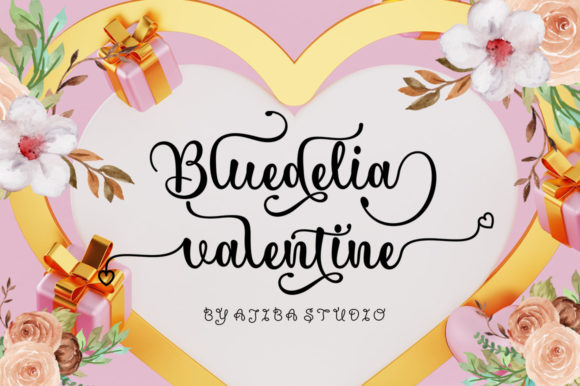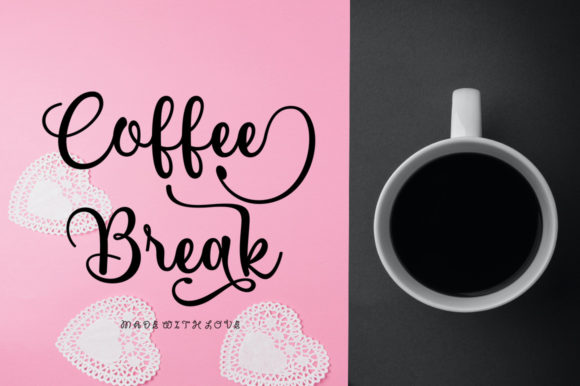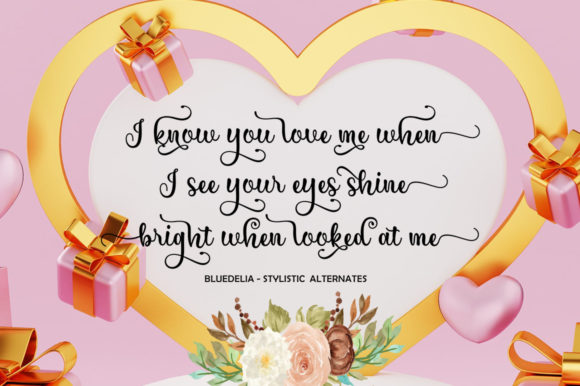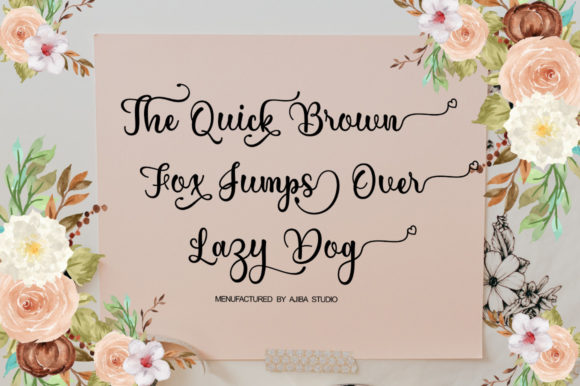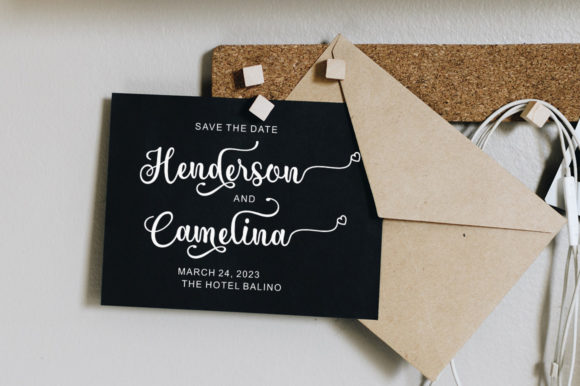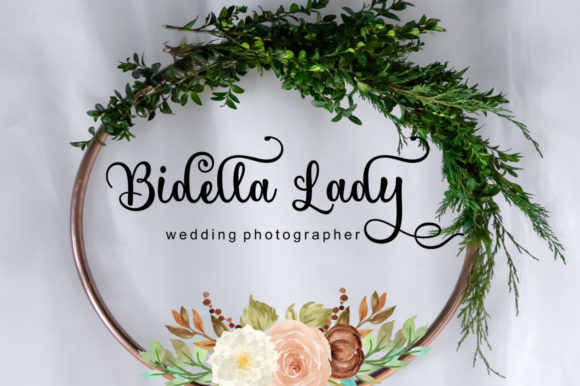
The Perfect Font for Your Love Story: Bluedelia Sript Font
Have you ever been stuck in front of your computer, staring at a blank page, desperately searching for the right words to express your feelings? You know, that moment when you want to write a love letter to your partner, but the words just won’t come out right? That’s where the Bluedelia Sript Font comes in – a beautiful, romantic, and sweet calligraphy typeface that will make your words dance along the baseline.
This stunning font is designed to add a touch of luxury to any design project, making it perfect for wedding invitations, anniversary cards, or any other romantic gesture. With its PUA encoding, you’ll have access to all the amazing glyphs and ligatures, making it easy to create stunning designs. Whether you’re a seasoned designer or a DIY enthusiast, the Bluedelia Sript Font is sure to bring a touch of elegance to your work.
Bluedelia Script Font Features
- Font Family: Bluedelia Script, a beautiful and elegant script font
- Unique Characteristics: Handwritten, cursive, and elegant script style with a touch of sophistication and romance
Bluedelia Script Font Review
Bluedelia Script Font is a beautiful, elegant font that can add a touch of sophistication to your designs. ✨ Its flowing lines and subtle flourishes make it perfect for creating a sense of luxury and refinement. I particularly love using it for headings and titles, as it adds a level of depth and visual interest to the layout.
One of the standout features of Bluedelia Script Font is its excellent legibility. ✨ Even at smaller font sizes, the text remains clear and easy to read, making it perfect for body copy and longer passages of text. The font also works well in a variety of contexts, from formal business communications to creative marketing materials.
While Bluedelia Script Font is a fantastic addition to any designer’s toolkit, there are a few limitations to be aware of:
- ⚠️ Limited character set: Bluedelia Script Font is a script font, which means it may not be suitable for all languages or character sets.
- ⚠️ Not ideal for small text: While the font is legible at smaller sizes, it’s not ideal for extremely small text, such as captions or footnotes.
- ⚠️ May not work well in bold or italic: The font’s flowing lines can make it difficult to create bold or italic versions that are consistent with the regular font.
Overall, I’m impressed with Bluedelia Script Font, and I think it’s a great addition to any designer’s toolkit. While it has some limitations, it’s a beautiful and versatile font that can add a level of sophistication and elegance to your designs.
The Bluedelia Script Font is ideal for:
- Special occasion cards and gifts.